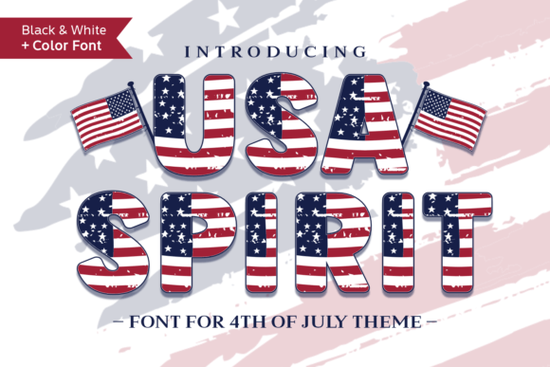
Designers, crafters, and small business owners often look for unique ways to add personality to their projects. If you're searching for a font that captures the spirit of the United States, the Usa Spirit Font could be exactly what you need. This decorative typeface brings a bold, playful energy to any design, making it ideal for holiday themes, patriotic events, or creative expressions of national pride.
The Usa Spirit Font stands out with its blocky, eye-catching letters that incorporate stars and stripes directly into the design. This makes it perfect for Fourth of July decorations, Memorial Day banners, or any project that needs a touch of American flair. The font’s color options allow for vibrant, dynamic visuals that can bring your ideas to life without needing complex graphic design skills.
What Makes Usa Spirit Font Unique?
Unlike standard fonts, the Usa Spirit Font is designed with a decorative twist. Each letter is filled with the iconic red, white, and blue patterns of the American flag, giving your work a distinctive and recognizable style. Whether you’re creating social media graphics, print materials, or digital artwork, this font adds a sense of celebration and patriotism that’s hard to replicate with other typefaces.
One of the key features of this font is its versatility. It works well in both digital and print formats, making it a valuable tool for a wide range of creative applications. From t-shirt designs to event invitations, the Usa Spirit Font can elevate your projects with its bold, patriotic aesthetic.
When working with this font, consider the size and placement of your text. Because of its detailed design, smaller sizes may not display clearly, so it's best to use it for headlines or large visual elements. Experimenting with different colors and backgrounds can also help highlight the font’s unique features.
Who Can Benefit from Using This Font?
This font is especially useful for print-on-demand sellers looking to create custom merchandise with a patriotic theme. It’s also great for small businesses that want to add a national touch to their branding or promotional materials. Crafters and hobbyists will appreciate the ease of use and the fun, whimsical style that the Usa Spirit Font brings to their projects.
For designers, this font offers a quick and effective way to add a sense of celebration to their work. It’s perfect for seasonal campaigns, event posters, or any design that requires a bold, attention-grabbing typeface. The combination of style and functionality makes it a popular choice among creatives who value both aesthetics and practicality.
Whether you're creating for a special occasion, a business venture, or a personal project, the Usa Spirit Font offers a fresh and exciting way to express your creativity. Its bold design and patriotic theme make it a standout choice for anyone looking to add a unique touch to their work.